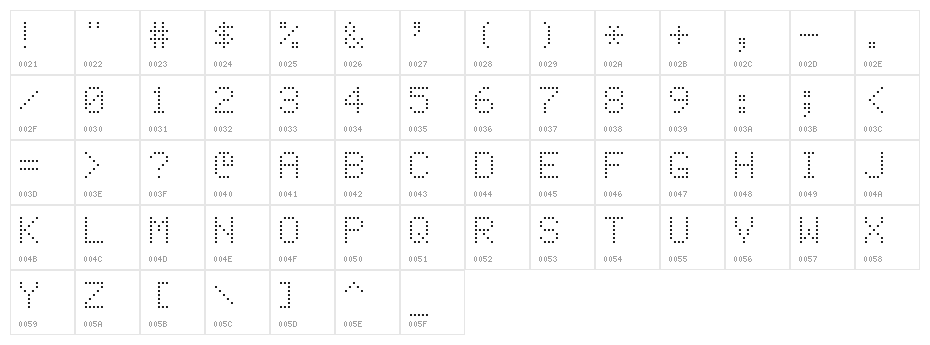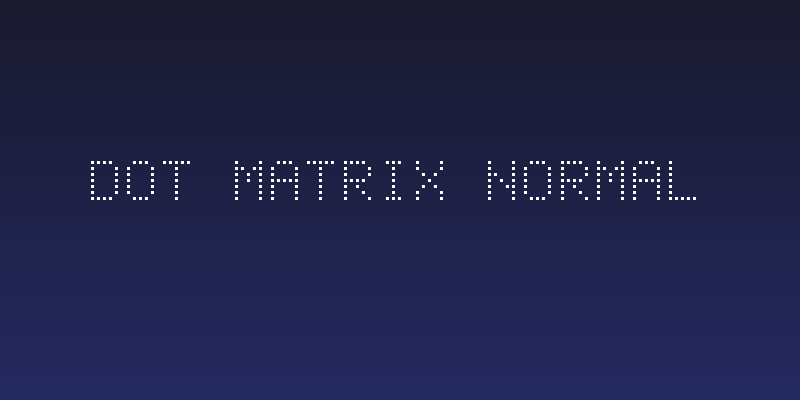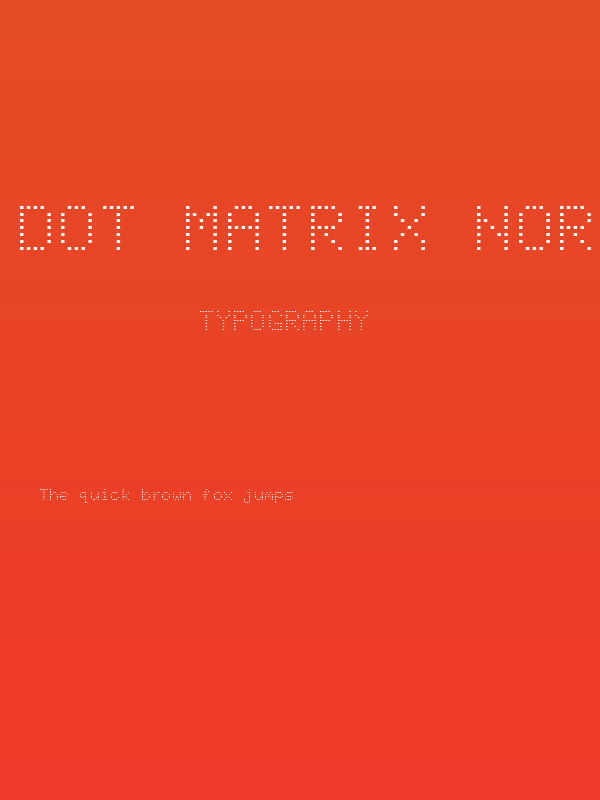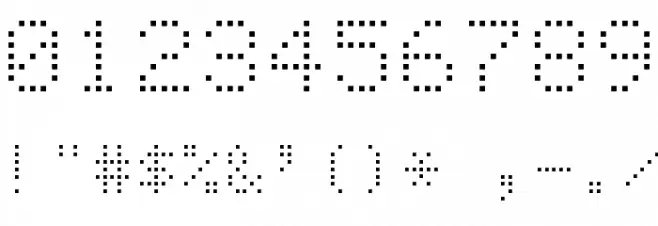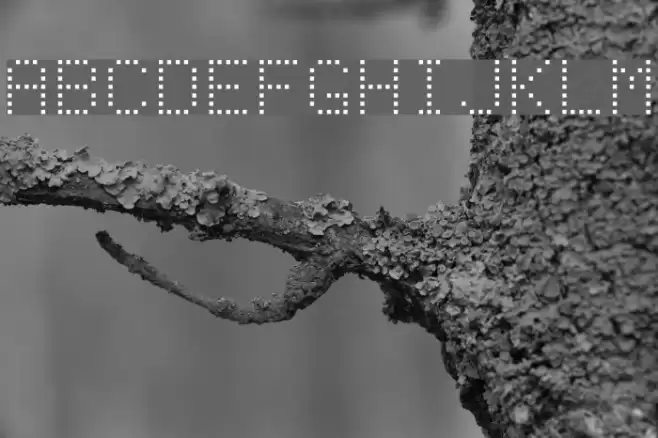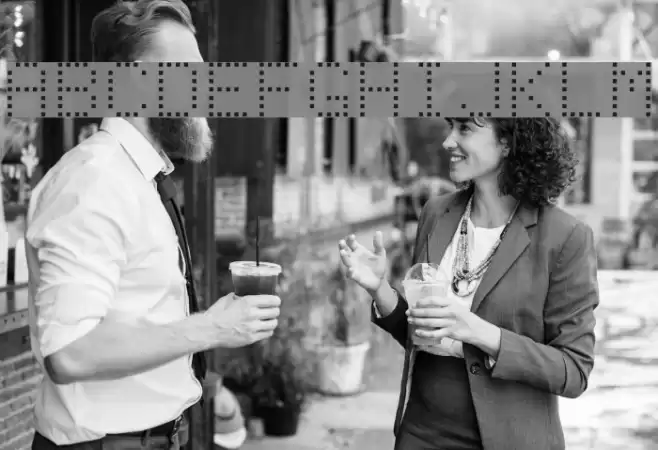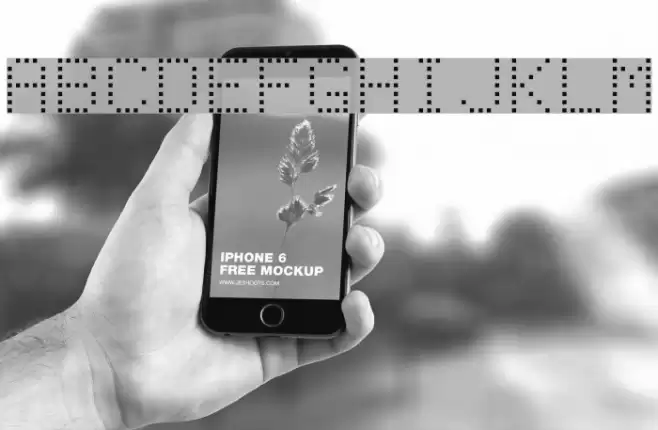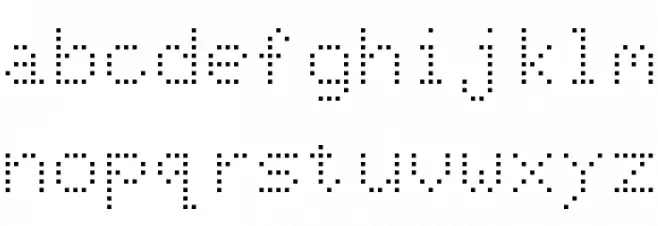
Dot Matrix Normal Font
| समग्र शैली | Retro, Digital |
| उपयोग का मामला | Logos, Headlines, Digital displays |
| सुझाए गए प्रोजेक्ट | Ideal for retro-themed designs, digital displays, tech-related projects, and creative posters. |